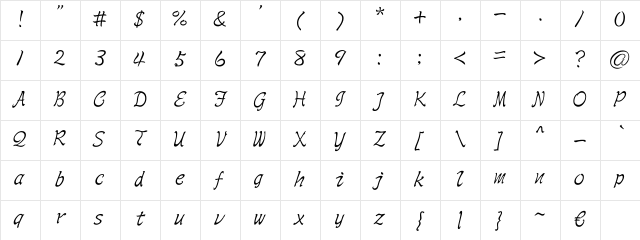
AR Script2 Medium Regular
Design Context for AR Script2 Medium
AR Script2 Medium flows with the natural rhythm of handwritten lettering, making it ideal for designs that call for warmth and personal expression.
Font Pairing: Combine AR Script2 Medium with a simple geometric sans for maximum contrast - the tension between flowing curves and clean structure is a classic typographic pairing.
Pro Tip: Use AR Script2 Medium for short runs of text - names, titles, or taglines. Extended body copy in script faces tires the eye quickly.